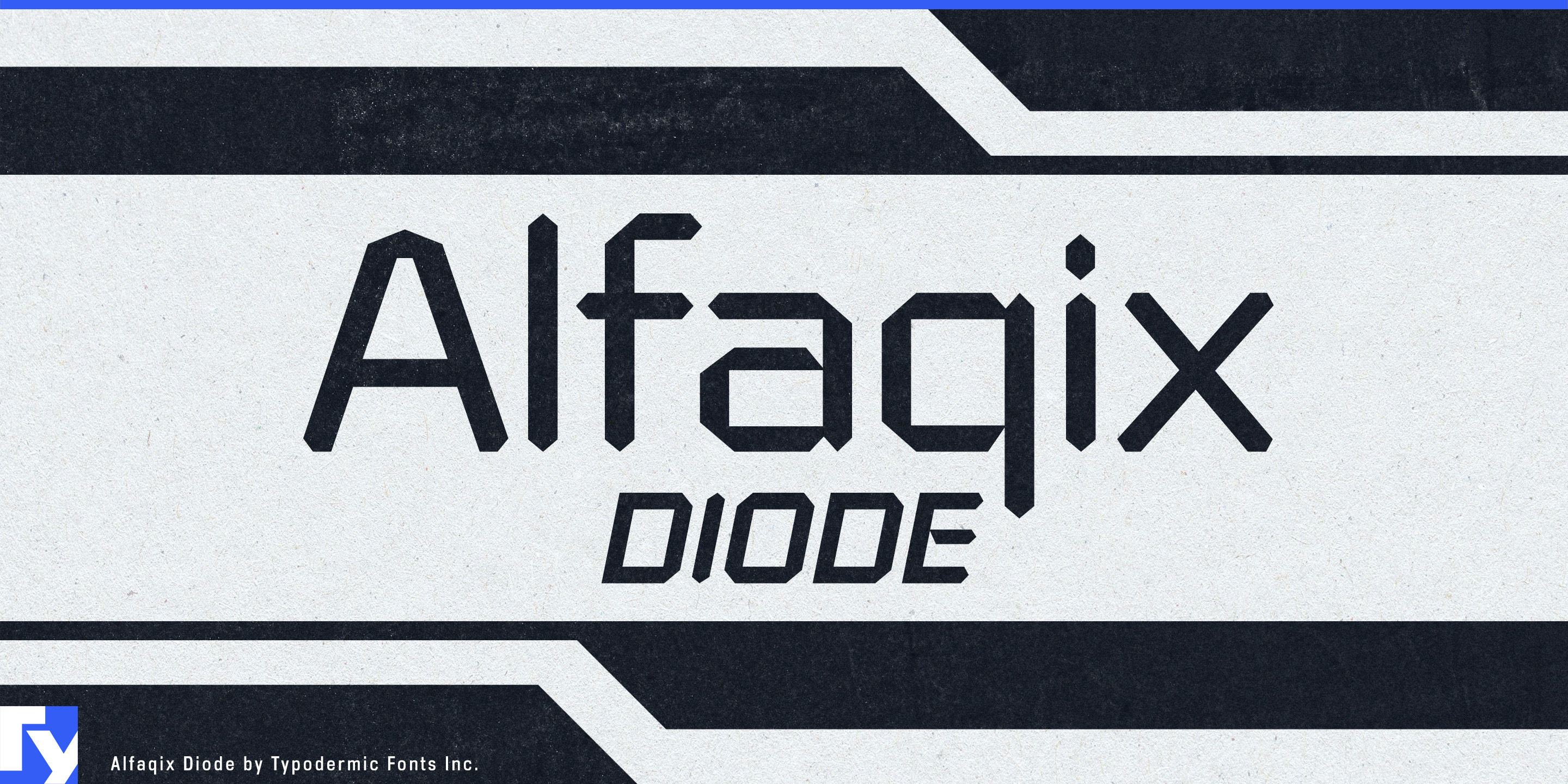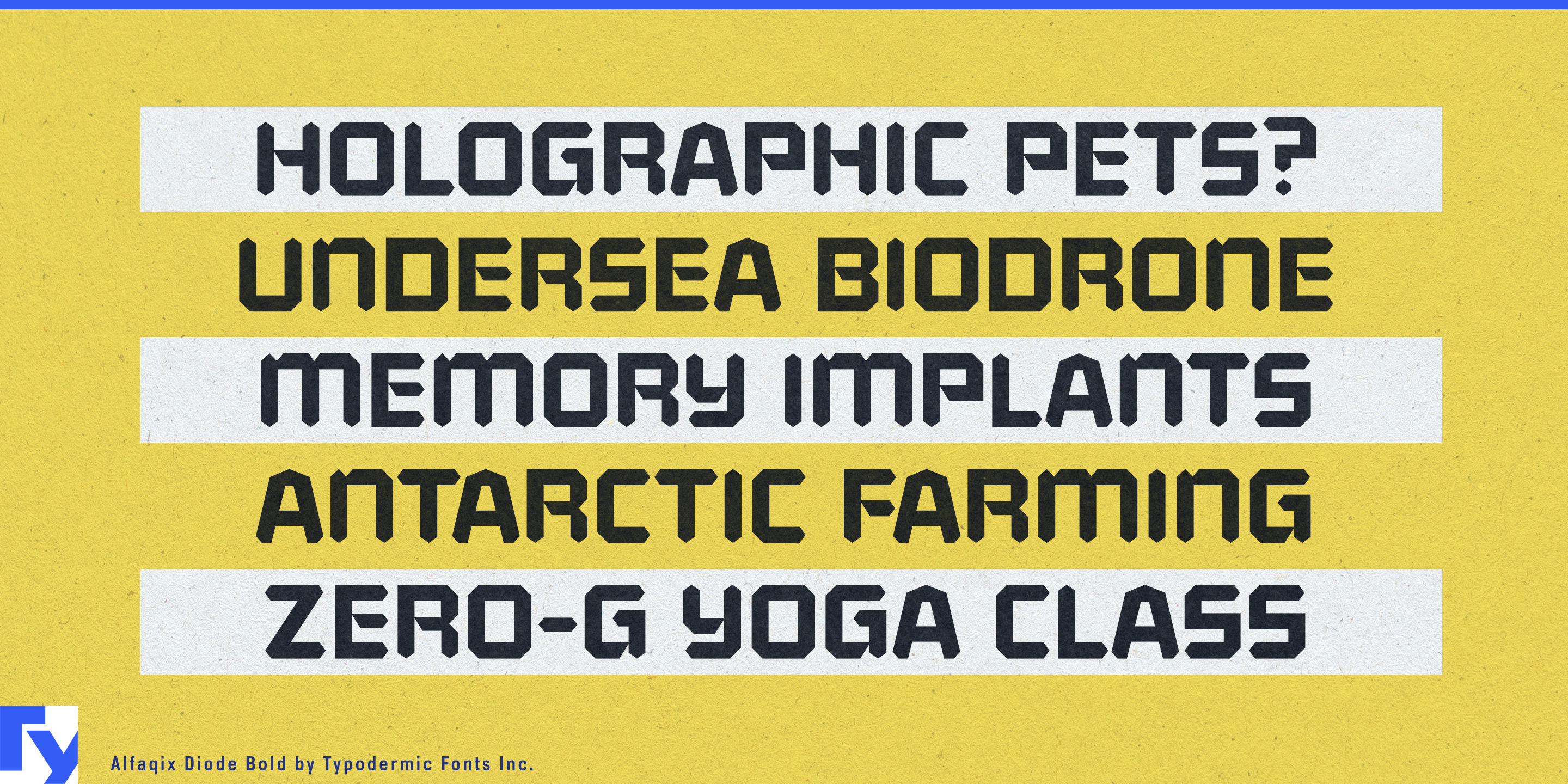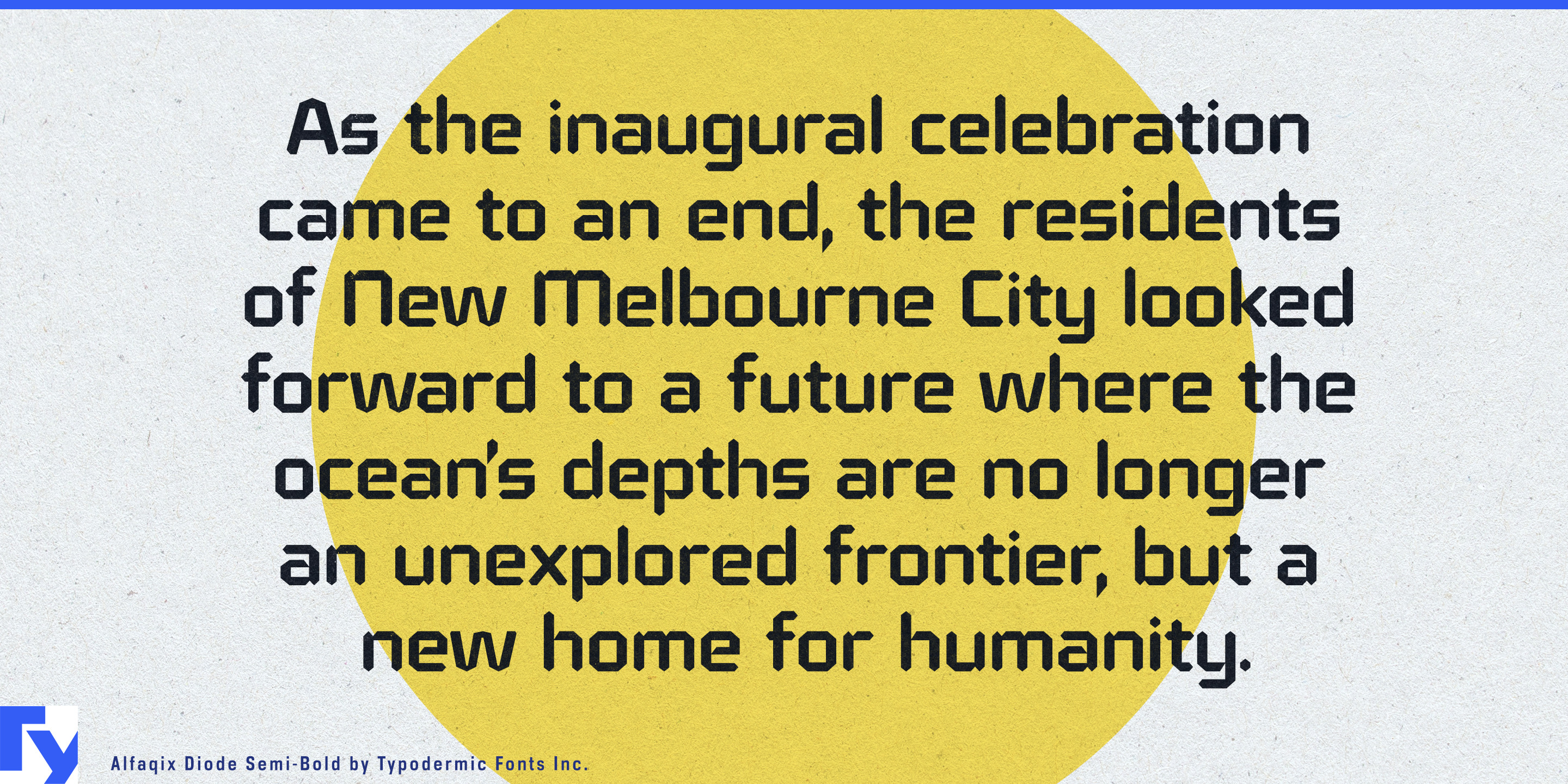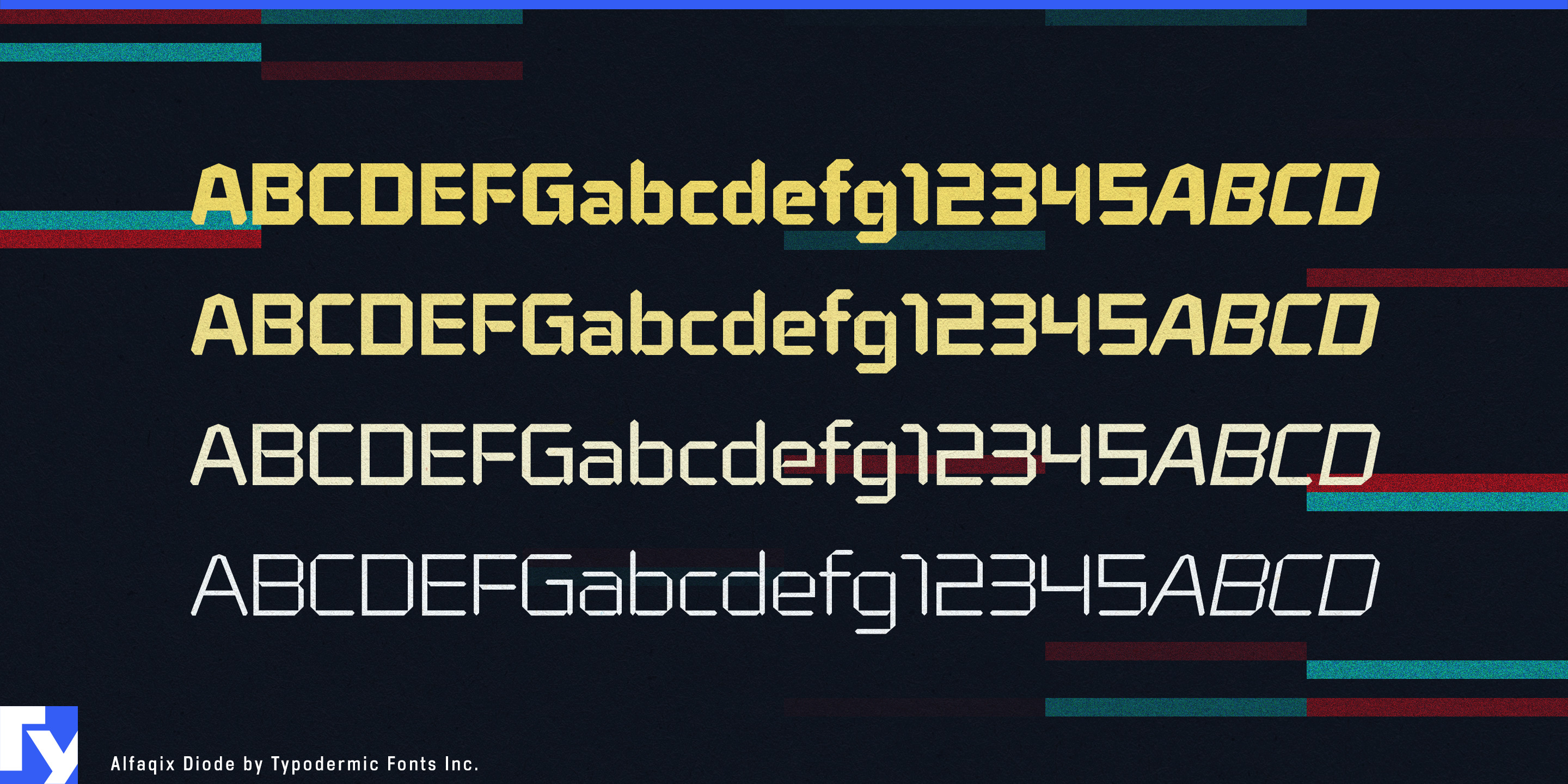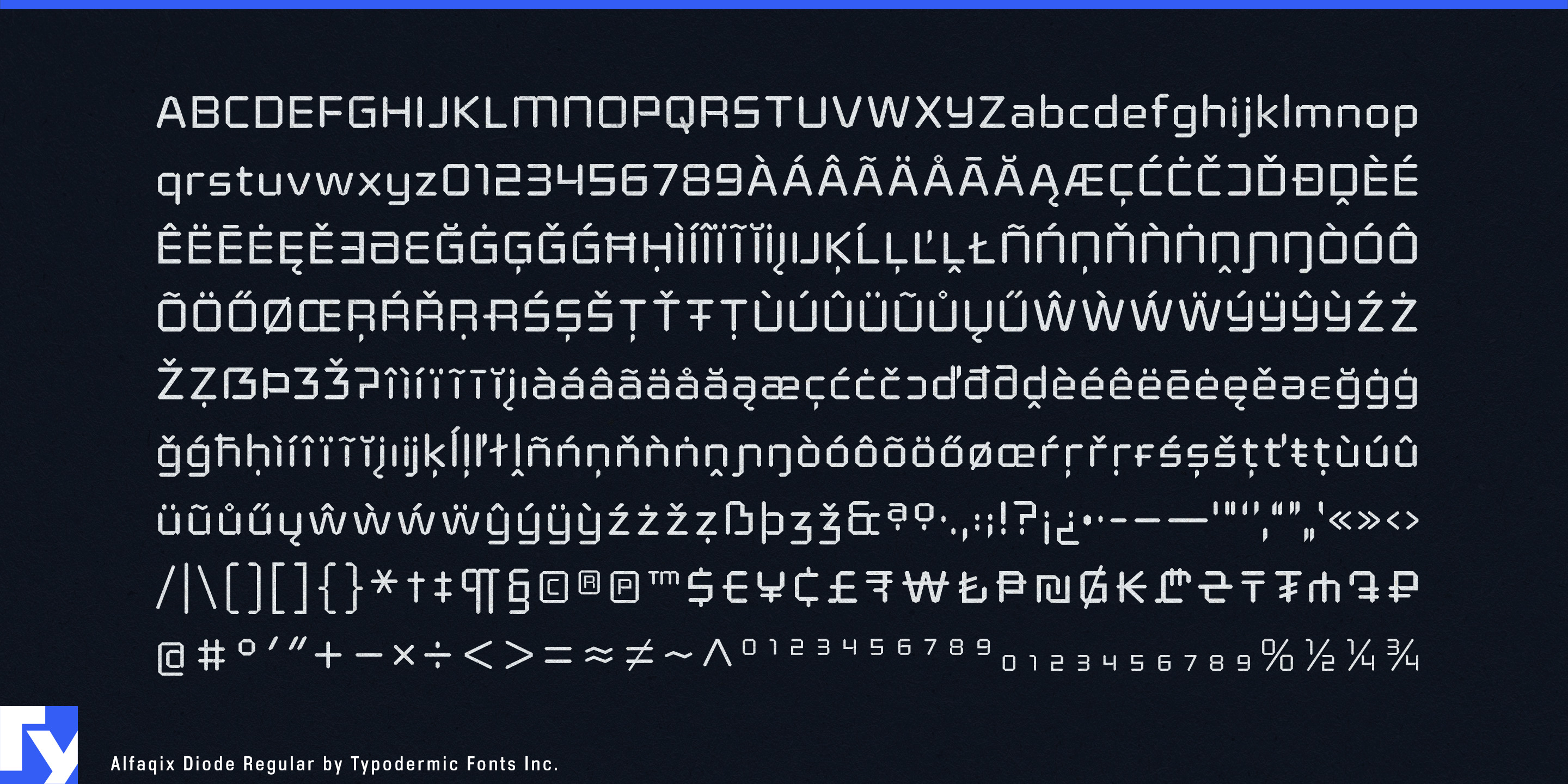
Alfaqix Diode
A digital readout is excellent at showing a time, score or measurement. Ask it to handle a competitor’s name, an event title, a category label or a few words of explanation and its limitations become obvious. Alfaqix Diode takes the visual language of electronic displays and turns it into a complete typographic system, retaining the segmented, machine-generated character while providing a full alphabet, four weights and matching italics.
That makes Diode especially useful for sports timing and competition graphics. Race clocks, lap counters, swimming results, cycling events, motorsport telemetry and tournament displays all revolve around information that is measured, ranked or continuously updated. Large numerals can carry the score, elapsed time or speed while the same family continues into competitor names, event headings, classifications and supporting labels.
Broadcast and streaming graphics present the same challenge. Sports coverage and racing broadcasts need standings, statistics, speeds, rankings and changing status information alongside ordinary words and names. Diode keeps those elements visually connected to the data being shown without forcing the designer to combine a literal digital-number font with an unrelated alphabet.
Electronic music hardware offers another natural setting. Synthesizers, drum machines, samplers, DJ controllers and effects processors live among parameter values, small screens, status indicators and model numbers. Diode can bring that vocabulary into instrument names, software-synth titles, preset graphics, product launches and trade-show displays while remaining flexible enough for more than brief electronic readouts.
Fitness equipment and training systems provide a similar mixture of words and measurements. Treadmills, exercise bikes, rowing machines and performance apps constantly present elapsed time, resistance, distance, repetitions and speed. Diode can establish model names, workout categories and statistical headings while keeping them visually related to the numbers around them.
Part of the Alfaqix modular family, Diode is distinguished by the segmented electronic construction built into its letterforms. Where a simple digital display handles a few numbers or symbols, Diode extends that visual language into names, headings, labels and complete information hierarchies. It is most at home when the typography needs to look as though the score, time, speed or status came directly from the machine.